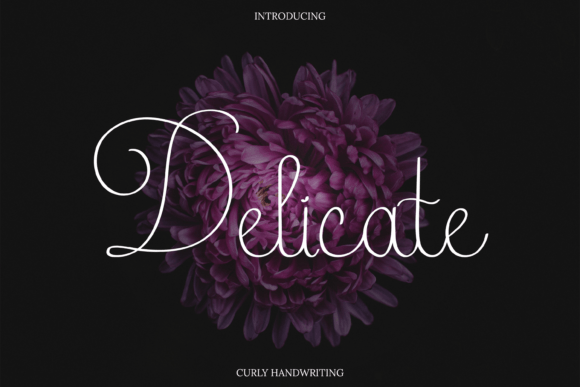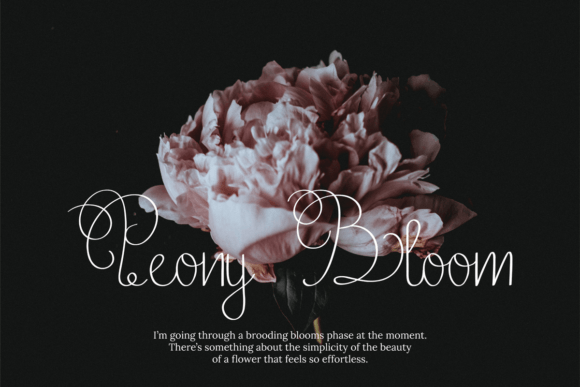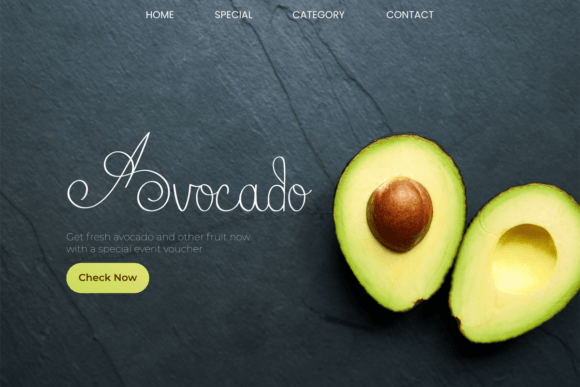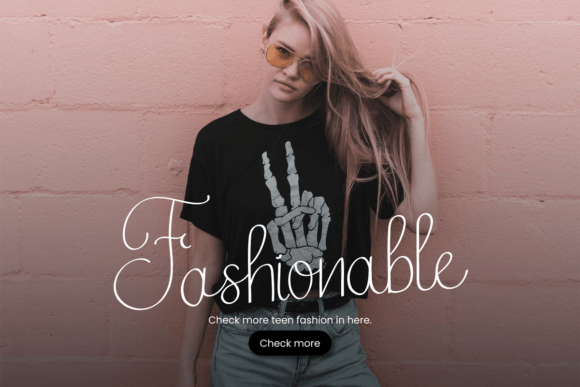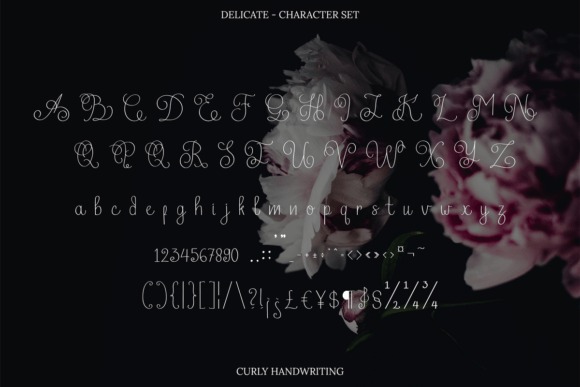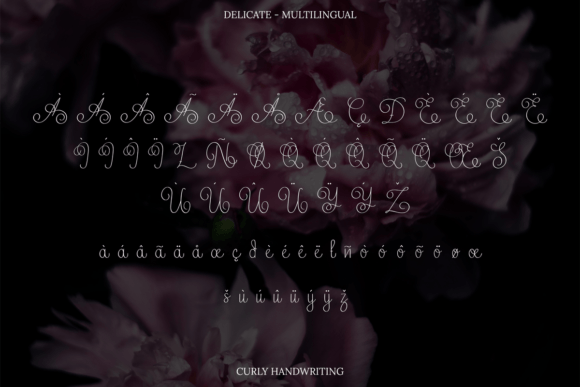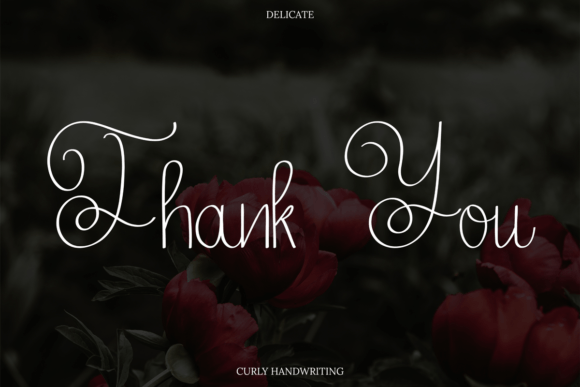
Delicate Font
Introducing Delicate, a curly handwritten font designed to bring a touch of elegance and charm to your creative projects. Delicate is the perfect choice for a wide range of applications, making it ideal for branding projects, logos, wedding designs, social media posts, advertisements, product packaging, product designs, labels, photography, watermarks, invitations, stationery, and any projects that require a distinctive handwriting taste.
The curly elements of Delicate add a sense of whimsy and sophistication to your designs. Whether you’re working on a wedding invitation that demands an extra touch of elegance or creating a logo that requires a unique and handwritten feel, Delicate is the font that adds a delicate and charming character to your projects.
For branding projects, Delicate becomes a key element in establishing a memorable and distinctive visual identity. Its handwritten style adds a personal touch, making your brand more relatable and approachable.
Social media posts benefit from Delicate’s ability to convey a sense of warmth and authenticity. Whether you’re sharing quotes, promotions, or announcements, this font enhances the visual appeal and engagement of your content.
In the realm of product packaging and labels, Delicate brings a unique handwriting taste that stands out on the shelf. It adds an extra layer of personality to your products, making them more appealing to consumers.
Photography and watermarking find a perfect companion in Delicate. Its curly and handwritten charm complements images, creating a harmonious balance between the visual and textual elements.
For invitations and stationery, Delicate adds a touch of romance and sophistication. Whether you’re crafting wedding invitations or creating personalized stationery, this font becomes the embodiment of handwritten elegance.
In summary, Delicate is more than just a font; it’s a creative tool that enhances the beauty and charm of your designs. Embrace its curly handwritten style to bring a unique and delicate touch to your branding, social media, packaging, and various creative projects. Choose Delicate for a taste of elegance and charm in every stroke.